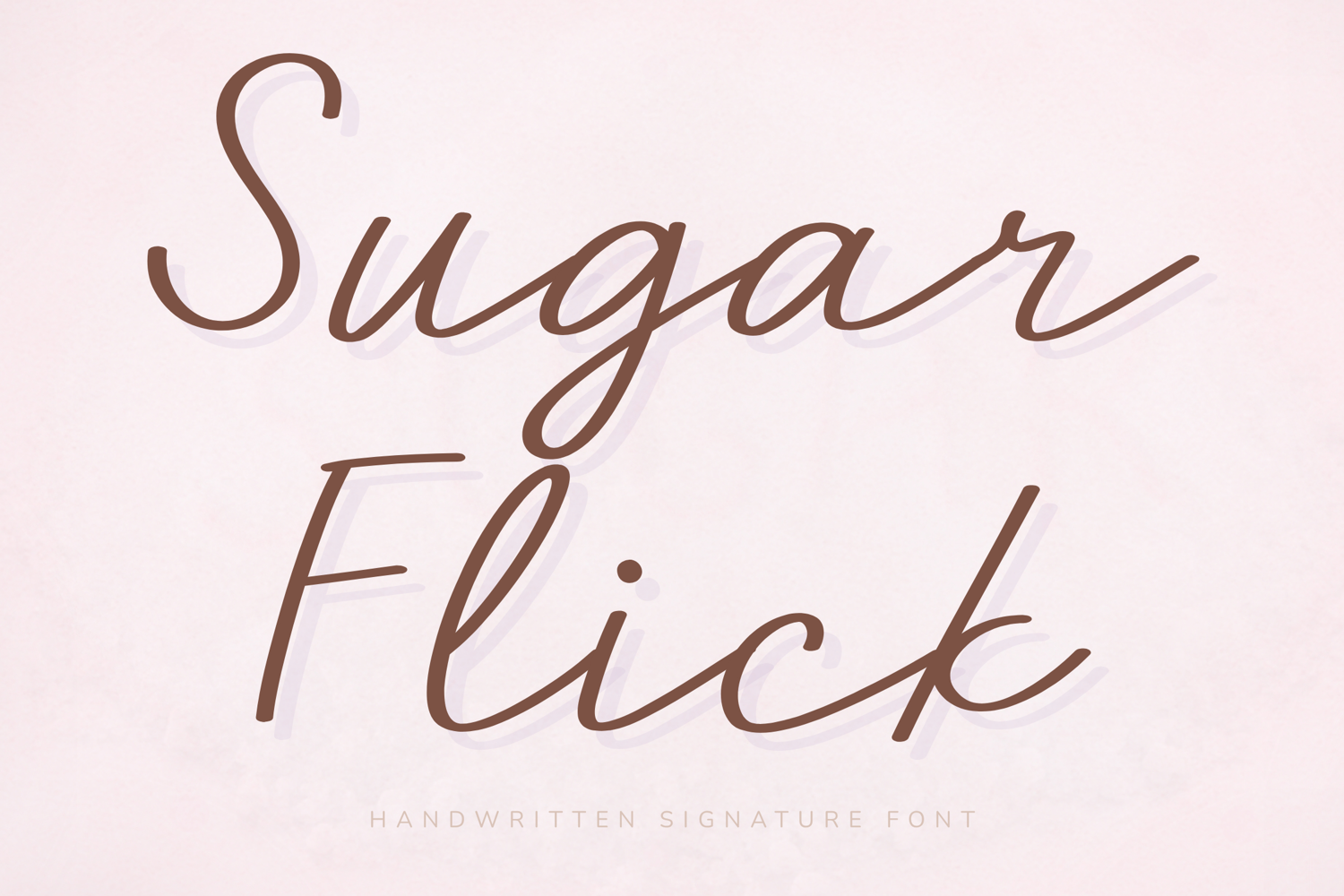
Sugar Flick - Handwritten Signature Font
SugarFlick
Sugar Flick – Handwritten Signature Font
Sugar Flick is a delicate and elegant handwritten signature font inspired by the sweetness of sugar and the graceful motion of a pen flick. With thin flowing strokes, airy letterforms, and sophisticated curves, this font captures the beauty of modern calligraphy and feminine branding.
Perfect for boutique logos, wedding invitations, signatures, photography watermarks, and luxury packaging, Sugar Flick adds a refined and stylish touch to every design. Its light and graceful appearance makes it ideal for creators who want an effortless handwritten look with premium appeal.
Key Features:
Elegant handwritten signature style
Thin and flowing strokes
Natural pen flick endings
Sophisticated and feminine appearance
Perfect For:
Luxury logos
Signature branding
Wedding invitations
Photography watermarks
Cosmetic packaging
Boutique labels
Social media graphics
Business cards
Fashion branding
Best Use Cases:
Beauty brand logos
Wedding stationery
Signatures
Product packaging
Photography branding
Instagram content
Brand Mood:
Elegant
Feminine
Sweet
Sophisticated
Romantic
Luxurious
Design Style:
Sugar Flick combines the softness of handwritten script with refined signature aesthetics. The graceful upstrokes and sweeping endings create a font that feels feminine, and effortlessly elegant